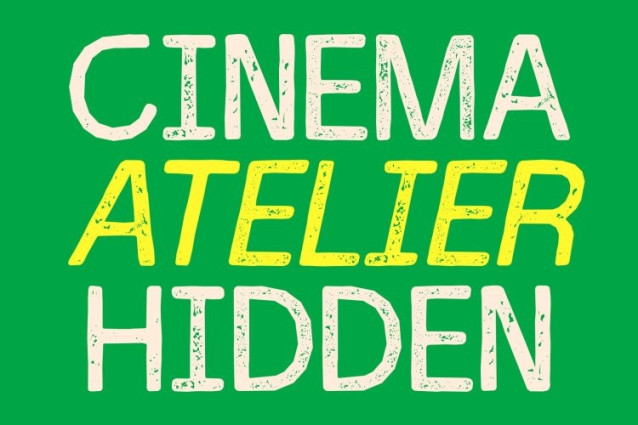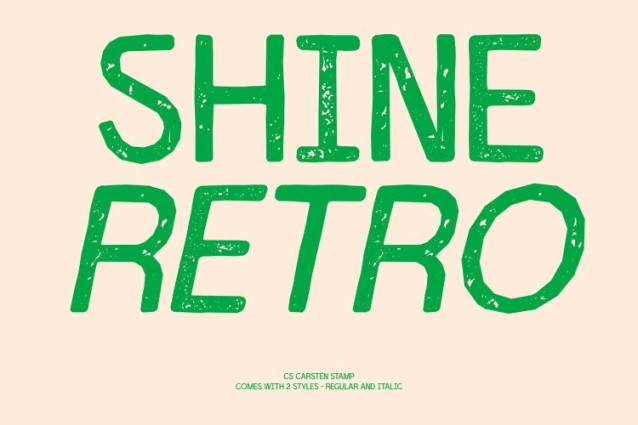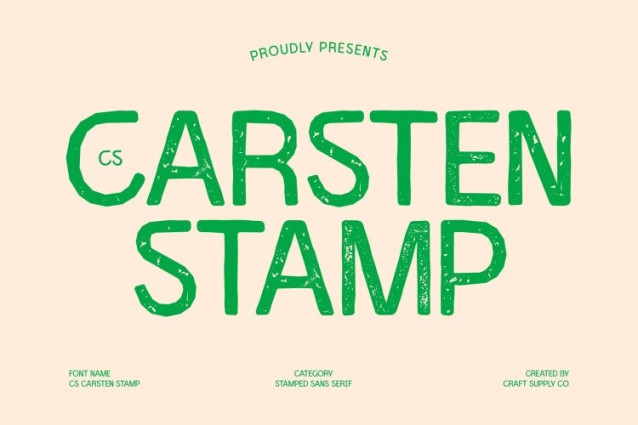
CS Carsten Stamp Font
CS Carsten Stamp Font – This is a sans serif font that blends modern, experimental, and minimalist influences into a cohesive and versatile typeface. Its letterforms subtly shift between clean tradition and contemporary expression, creating a visual language that feels both professional and relaxed. The addition of a stamp effect introduces a vintage-inspired texture, giving the font a distinctive character that balances modern clarity with a handcrafted feel.
Minimalist Structure with Distressed Details
Built on a foundation of clean strokes and balanced proportions, maintains a minimalist structure that ensures readability and visual harmony. The stamp effect adds slightly worn edges and organic ink textures, reminiscent of traditional stamped printing. This subtle distressing brings warmth and authenticity to the otherwise modern design.
Elegant Balance of Tradition and Innovation
This font bridges classic elegance and modern style. Its calm rhythm and smooth geometry communicate professionalism and trust, while the hybrid details keep the typeface fresh and expressive. The textured finish enhances its personality, giving designs a refined yet artistic appearance.
Ideal for Branding, Editorial, and Digital Design
Versatile and distinctive, this font works beautifully across branding, modern editorial layouts, websites, and digital interfaces. Its blend of contemporary structure and vintage stamp texture makes it an excellent choice for creative professionals seeking typography that feels current, polished, and full of character.